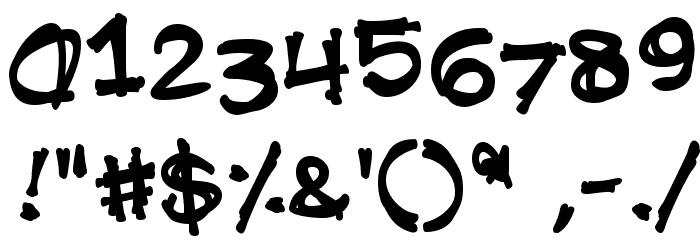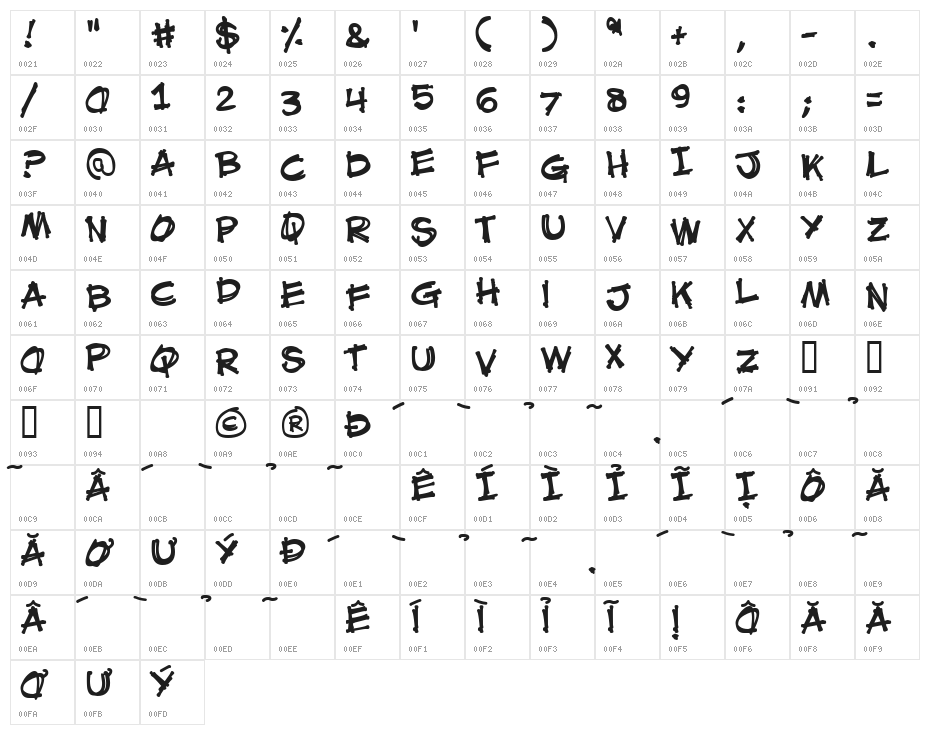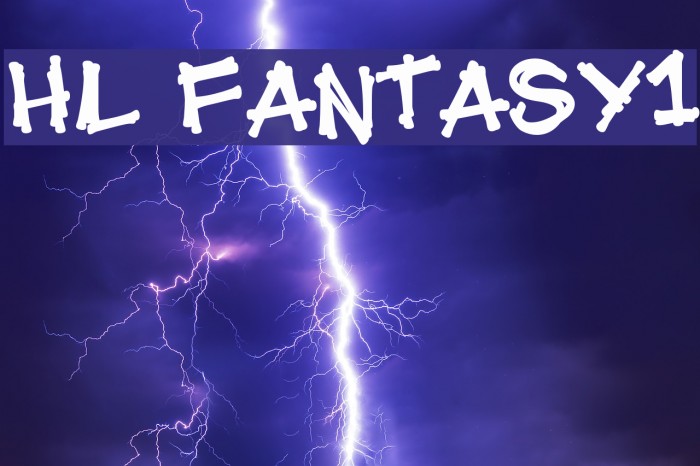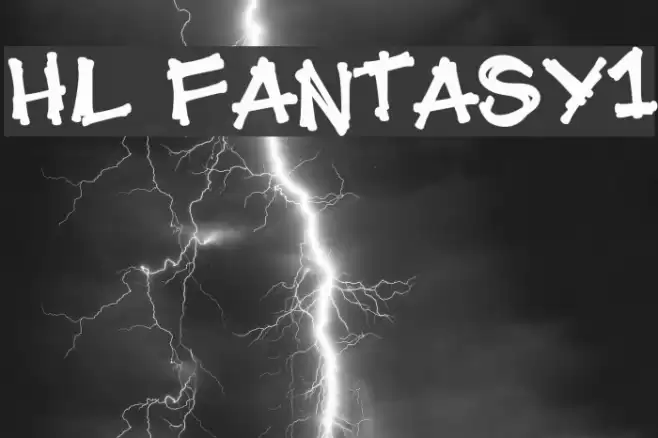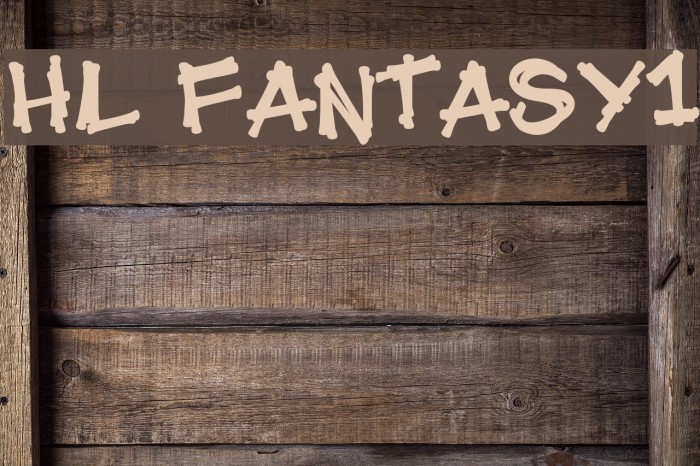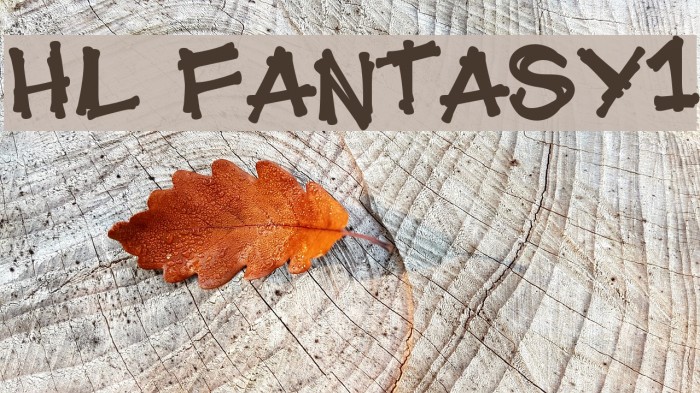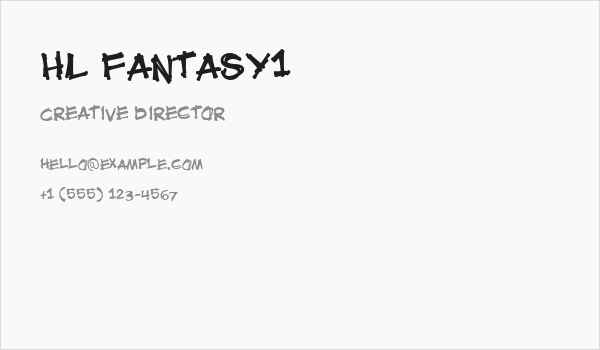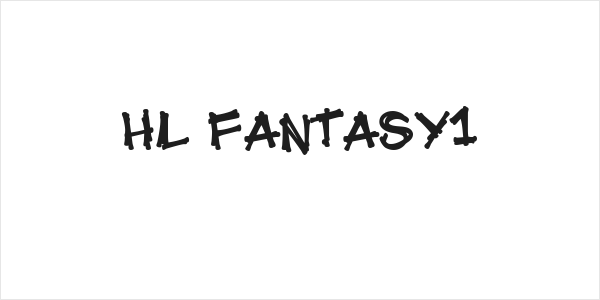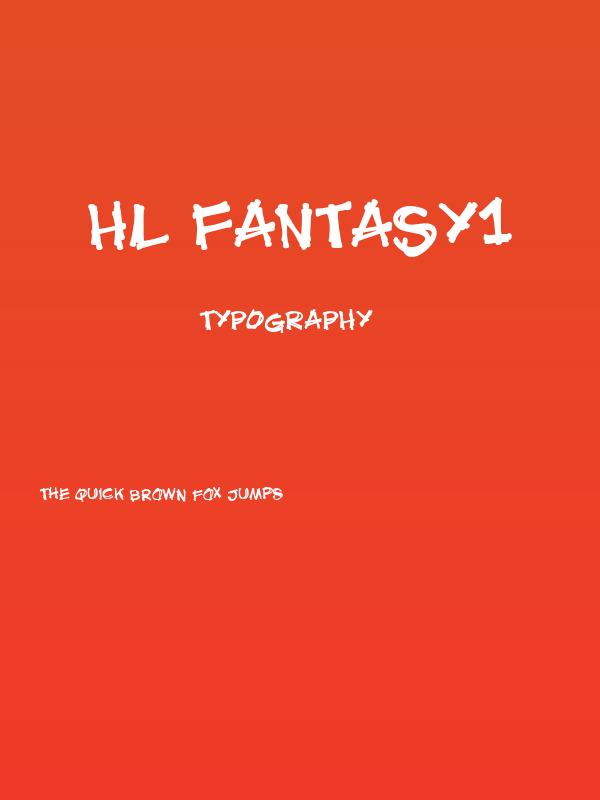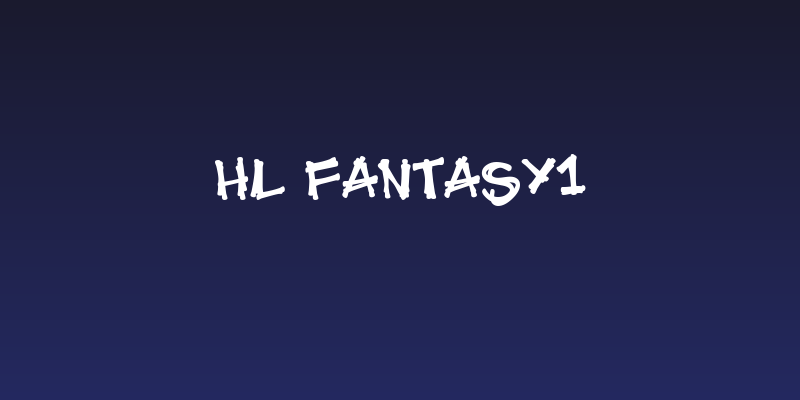
HL Fantasy1 Font
HL Fantasy1 Description
This font features a bold, playful style with a hand-drawn appearance. The characters are irregular and dynamic, giving a sense of movement and energy. Each letter has a unique, slightly distorted shape, contributing to its whimsical and informal look. The strokes are thick and uneven, enhancing the font's casual and artistic feel. The numbers and special characters maintain this quirky aesthetic, making it suitable for creative and fun projects. Its distinctive style captures attention and adds a lively touch to any design.
| Overall Style | Playful, Artistic, Whimsical |
| Proposed Projects | Ideal for children's books, comic strips, playful branding, posters, and creative invitations. |